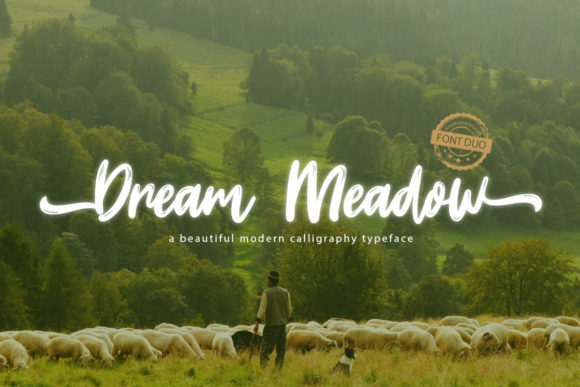
Behold, Dream Meadow Font – A Whimsical and Delightful Script Font Duo
Prepare to fall head over heels for Dream Meadow Font, an enchanting script font duo exuding a playful and carefree spirit. This masterpiece from the creative forge of Khurasan captures the essence of whimsical charm, injecting a cheerful touch into your designs that's sure to captivate and enthrall.
Dive into a World of Creative Possibilities
With Dream Meadow Font, your imagination takes center stage. Whether you're crafting stunning logos that demand attention, weaving captivating social media posts that resonate, or designing eye-catching invitations that leave a lasting impression, this font duo is your trusty companion. Let your creativity soar as you bring your vision to life with Dream Meadow's enchanting touch.
Embrace the Essence of Joy and Playfulness
Dream Meadow Font is more than just a font; it's an artistic expression of joy and playfulness. Its graceful lines dance across the page like a melody, inviting you to infuse your designs with a sense of lightheartedness and cheer. Transform your projects into expressions of pure delight, spreading happiness and positivity wherever they go.
The Perfect Font Duo for a Range of Creative Projects
With its versatile nature, Dream Meadow Font seamlessly adapts to a myriad of creative endeavors, becoming an indispensable tool in your design arsenal. Whether you're crafting heartwarming wedding invitations, designing playful posters for events, or creating social media content that sparks joy, Dream Meadow Font is your go-to choice for adding a dash of whimsy and enchantment.